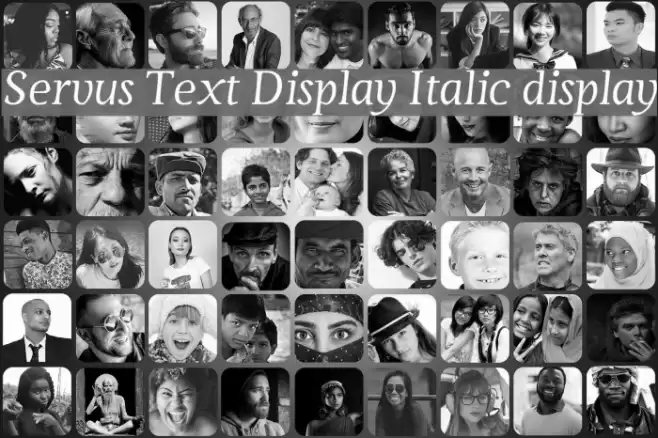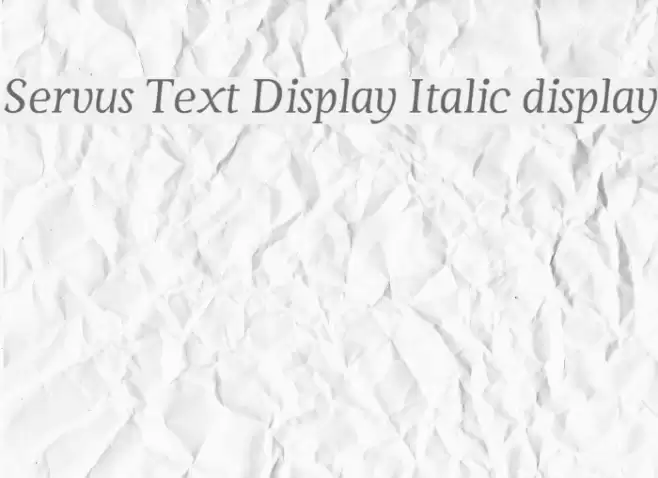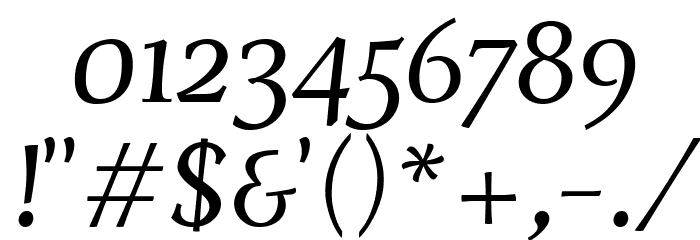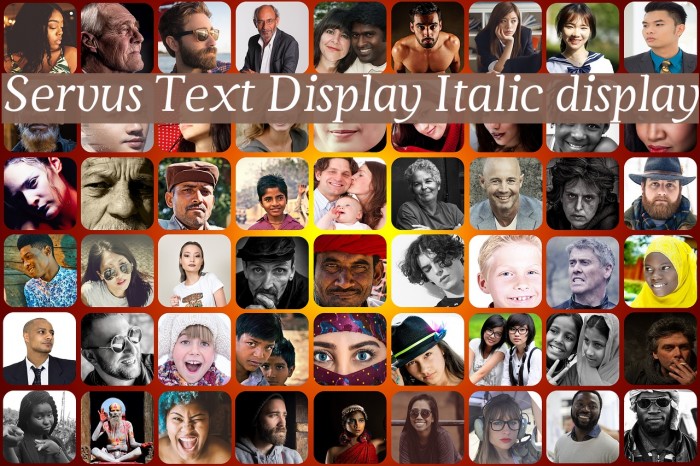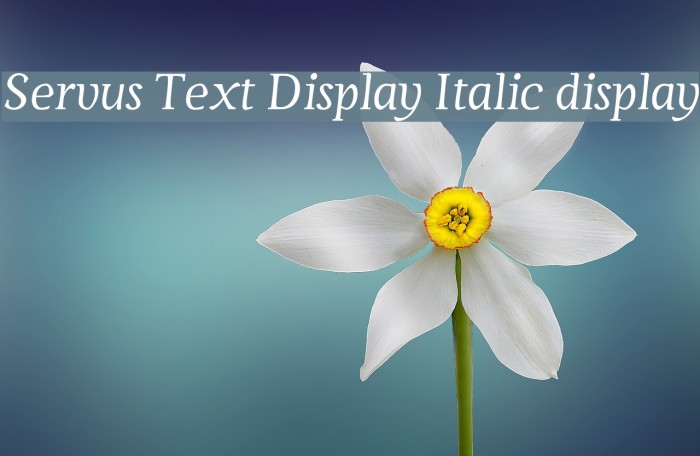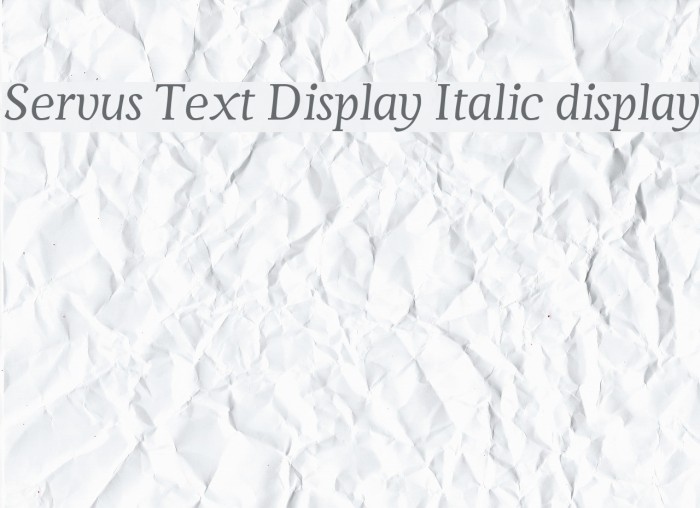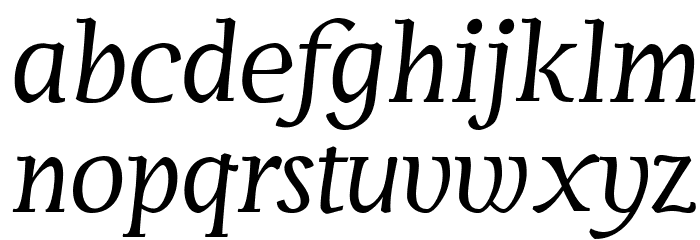
Servus Text Display Italic display Font
Servus Text Display Italic display Description
This font features an elegant and sophisticated italic style, characterized by its smooth, flowing curves and refined serifs. The uppercase letters exhibit a classic formality, while the lowercase letters maintain a graceful continuity. The numerals are distinct and well-proportioned, ensuring readability. Special characters are thoughtfully designed to complement the overall aesthetic. The font's italic nature adds a dynamic and stylish touch, making it suitable for a variety of applications where elegance and readability are paramount.
An elegant italic serif font with smooth curves and refined serifs from Uncategorized fonts.
- Proposed Projects: Ideal for use in editorial design, luxury branding, wedding invitations, and high-end product packaging.
- Overall Style: Classic